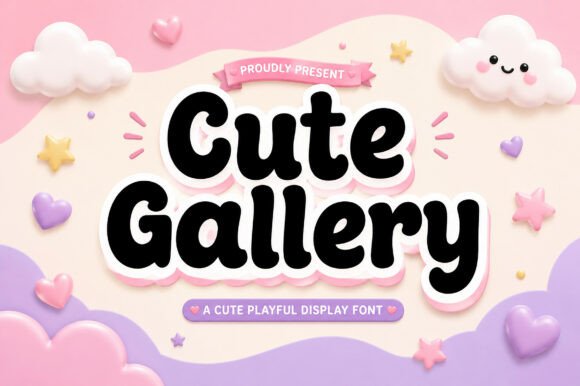
Cute Gallery: A Cheerful Display Font for Digital Projects
Last week I was staring at a half-built hero section for a handmade jewelry client. The layout was pleasant, the imagery soft and pastel, but the headline felt completely lost. The default sans-serif I had used as a placeholder flattened the personality of the brand. I started browsing display fonts again, looking for something that could hold its own as a primary visual element, not just a supporting text layer. That’s when I landed on Cute Gallery.
Cute Gallery is a display font with genuinely warm rhythm. Its rounded, balloon-like letterforms feel hand-drawn but stay consistent across different weights. The curves are slightly exaggerated without ever becoming messy, and there’s a soft bounce in the baseline that makes even simple words feel cheerful. In the browser it came across as playful, approachable, and still structurally clean enough to anchor a digital layout. It didn’t feel like a novelty font I’d use once; it felt like a design asset built for modern web spaces that need instant emotional clarity.
Testing Cute Gallery in a Real Website Layout
I started with the hero section. The client’s boutique online store sells custom earrings with minimalist branding, but the voice of the copy is intentionally sweet and personal. The original heading — “Tiny treasures, made by hand” — was lost in a neutral geometric sans. I swapped it into Cute Gallery, reduced the letter spacing slightly, and the entire section transformed. The font gave the headline weight without needing a heavy type scale, and the rounded strokes naturally led the eye toward the CTA button below.
One thing I immediately checked was how the font behaves when layered over an image. The hero background was a soft tonal floral photograph. The contrast between the photograph’s delicate texture and the smooth, solid shapes of Cute Gallery created a pleasant friction — soft on soft, but distinct enough to maintain readability. Adding a micro amount of text-shadow helped lift the type off the background on mobile devices, where ambient light can wash out fine contrast. But even without that, the font’s chunky counters stayed intact on both light and dark image overlays.
Where Cute Gallery Shines Inside a Web Design
After seeing it work at the top of the page, I tested Cute Gallery across other parts of the layout. Here’s where it performed best:
- Hero call-to-action banners — especially for boutique shops, coaching offers, and course landing sections
- Section badges — small labels like “New Arrival” or “Free Shipping” felt more human
- Blog post hero graphics — as an overlay font on editorial-style featured images
- Testimonial pull quotes — short customer quotes gained a friendly, handcrafted quality
- Newsletter signup teasers — the softness invited opt-ins without being pushy
One of my favorite subtle placements was inside the “Shop the look” grid where each product category name sat above three thumbnail images. At small sizes — around 16 pixels — the font’s legibility stayed strong because the letterforms are naturally open. On mobile, those same category labels stacked cleanly without feeling cramped.
Readability, Responsiveness, and Visual Hierarchy
Display fonts with heavily rounded shapes can lose distinction between letters on small screens, especially with shorter words. Cute Gallery surprised me here. Even at modest browser sizes, its counters are generous, and the x-height is tall enough that lowercase letters read clearly. I used it mainly for headings between 32 and 48 pixels on desktop, scaling down to around 26 pixels on mobile. The font held up without needing to increase tracking, which kept the copy tidy inside the client’s content management system.
When scanning a landing page, readers often pause on the main headline first, then drop to the nearest subheading. In a jewelry shop, that might mean scanning from a hero tagline to a category name like “Earrings” or “Necklaces.” Cute Gallery created a visual hierarchy that felt intentional. Because the font itself carries personality, I didn’t need to rely on extreme color contrasts or oversized type to pull attention. The soft, bubbly shapes did the work, and the rest of the layout remained cleaner.
Pairing Cute Gallery for a Polished Digital Identity
No display font lives in isolation on a live website. Pairing Cute Gallery with body copy required a deliberate choice. I tested two approaches. The first paired it with a neutral sans-serif — something clean, geometric, and slightly condensed for product descriptions and checkout flows. The pairing worked because the sans-serif acted as visual silence, letting the headings sing without competing.
The second approach was for a blog redesign sub-project where I wanted a slightly more editorial look. I kept Cute Gallery for the post title and pull quotes, then used a soft serif font for the article body. The rounded display shapes against the more structured serif created a lovely tension that felt boutique and intentional, not accidental. This combination can work nicely for portfolio sites, course sales pages, and any online brand that wants to balance warmth with trustworthiness.
If you’re looking for a display font that brings genuine personality to your web projects, and you want something that pairs beautifully with a neutral sans-serif font or even a refined serif font, give Cute Gallery a real test on a live layout. Install it on a staging site, check it across breakpoints, layer it over your brand’s photography, and watch how it quietly shapes the way people feel about the content. That’s what good typography in digital design does — it doesn’t just deliver words, it delivers mood.